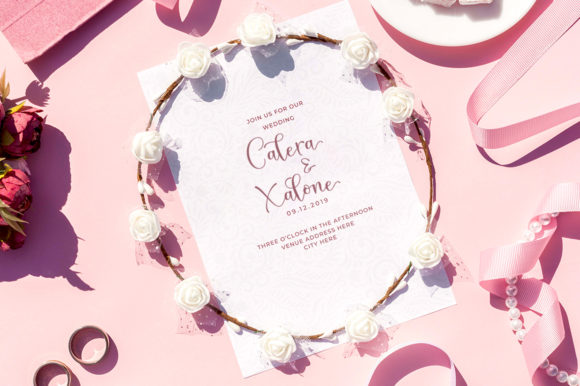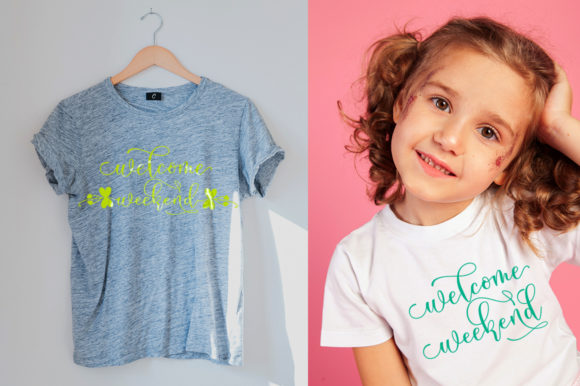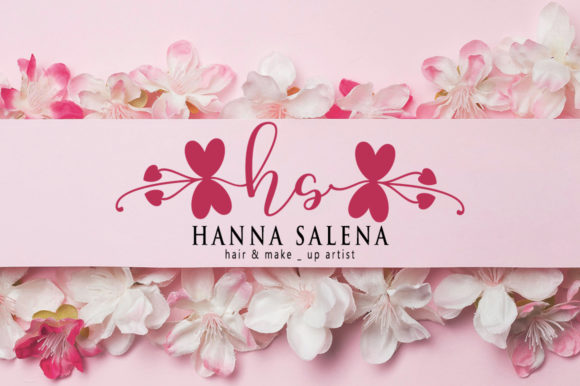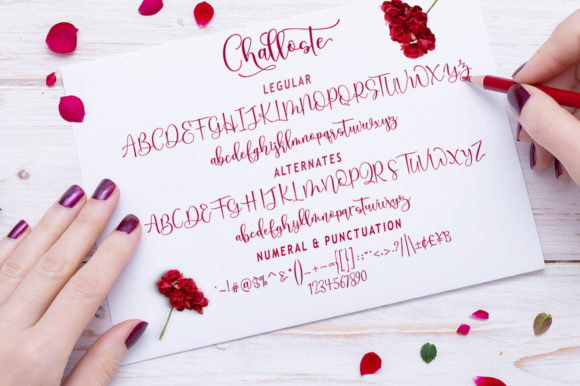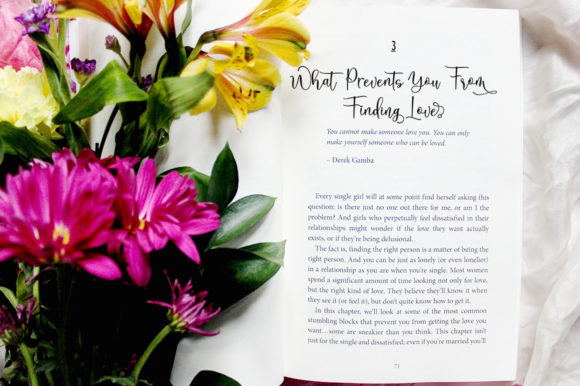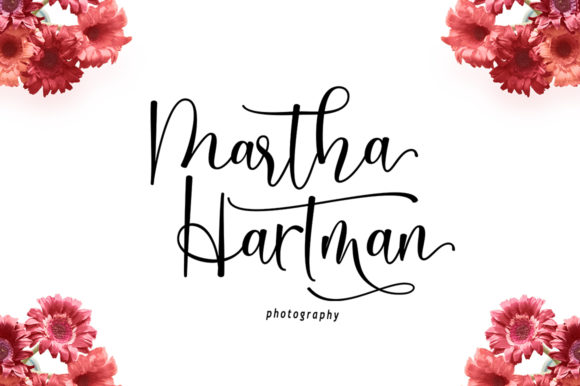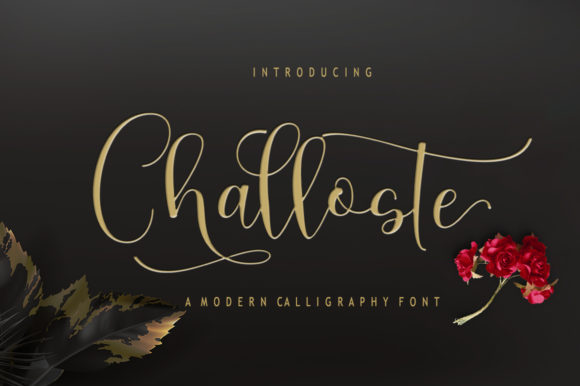
Challoste Font
About Challoste Font
Challoste sounds like a delightful and versatile handwritten font, perfect for adding a touch of charm and elegance to various design projects. Its PUA encoding ensures easy access to a wide range of glyphs and swashes, allowing for creativity and customization. Let’s explore some creative ideas on how to use Challoste font to create stunning designs:
1. Wedding Invitations: Design elegant and romantic wedding invitations using Challoste font. Its charming and sophisticated style will set the tone for a memorable event.
2. Thank You Cards: Create heartfelt and personalized thank you cards with Challoste font, expressing gratitude in a graceful and stylish manner.
3. Inspirational Quotes: Design beautiful quote graphics using Challoste font, enhancing the impact of inspiring words with its elegant touch.
4. Greeting Cards: Use Challoste font to design stunning greeting cards for various occasions, from birthdays to anniversaries and more.
5. Logos: Incorporate Challoste font into logo designs for businesses or brands that seek a sophisticated and handwritten look.
6. Business Cards: Create unique and eye-catching business cards with Challoste font, leaving a lasting impression on potential clients and customers.
7. Social Media Posts: Use Challoste font in social media graphics to add a touch of elegance and personality to your posts and updates.
8. Personal Stationery: Design personalized stationery using Challoste font, making your letters and notes truly special.
9. Branding Materials: Apply Challoste font in various branding materials such as brochures, flyers, and promotional materials for a distinctive and elegant look.
10. Handwritten Quotes on Art Prints: Use Challoste font to create handwritten quotes on art prints, perfect for home decor or gifts.
11. Book Covers: Incorporate Challoste font into book cover designs, adding a touch of sophistication to literary works.
12. Product Packaging: Apply Challoste font on product packaging for artisanal or boutique products, giving them an elegant and handmade feel.
13. Wedding Programs: Design beautiful wedding programs using Challoste font, making the ceremony and celebration even more special.
14. Restaurant Menus: Use Challoste font to create stylish and elegant menus for fine dining restaurants or special events.
15. Event Invitations: Design invitations for special events, such as galas, fundraisers, or formal parties, with Challoste font for a refined touch.
16. Artistic Posters: Use Challoste font to design artistic posters for exhibitions, art shows, or cultural events.
17. Monogram Designs: Create personalized monograms with Challoste font for weddings, logos, or branding purposes.
18. Lifestyle Blogs: Apply Challoste font in featured images or blog headers for lifestyle blogs that emphasize elegance and sophistication.
19. Beauty and Fashion Magazines: Use Challoste font in editorial layouts for beauty and fashion magazines, adding a touch of chic and grace.
20. Calligraphy Practice: Utilize Challoste font for calligraphy practice and honing your handwritten skills.
In conclusion, Challoste is a charming and elegant handwritten font that adds a touch of sophistication to various design projects. Its versatility and PUA encoding allow for a wide range of creative possibilities, making it an excellent choice for wedding invitations, thank you cards, logos, branding, and much more. Whether used for personal or professional purposes, Challoste font will surely impress with its timeless style and graceful appearance.